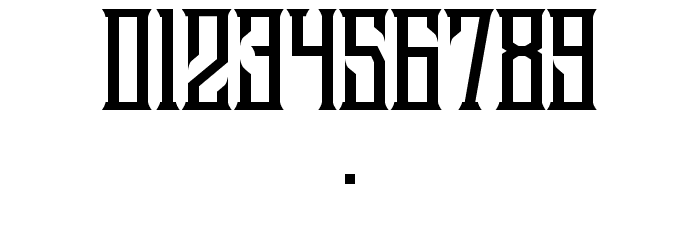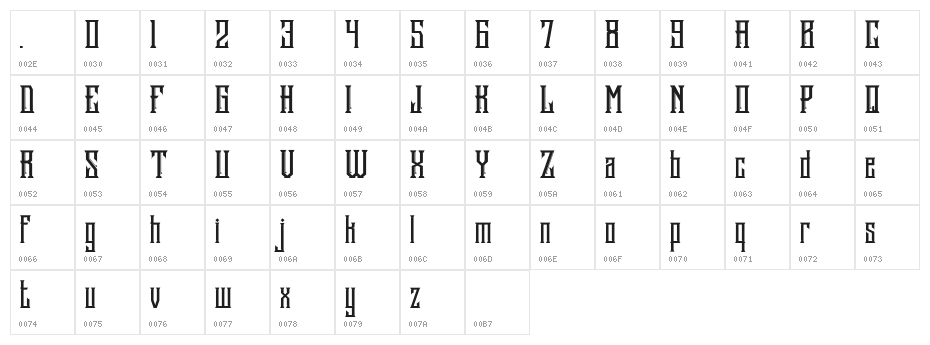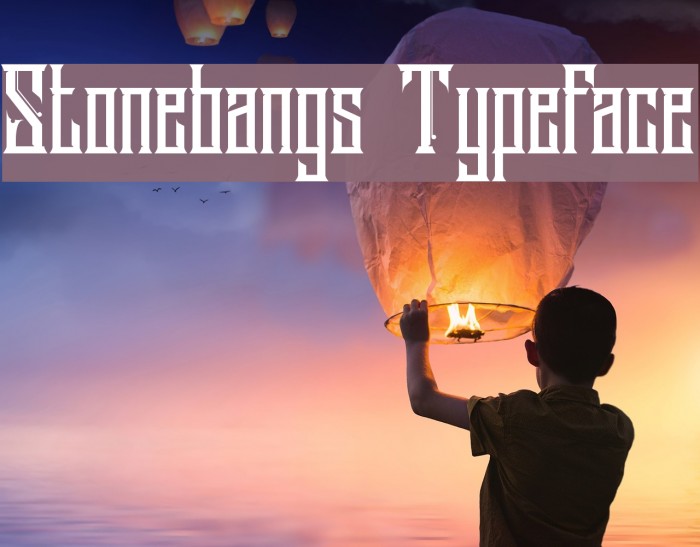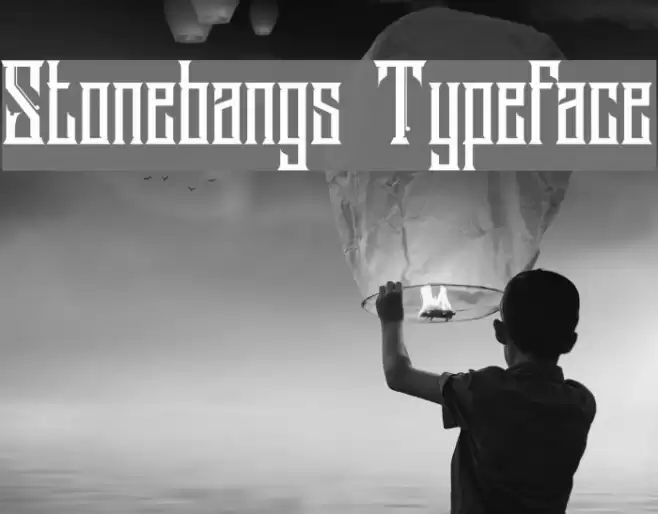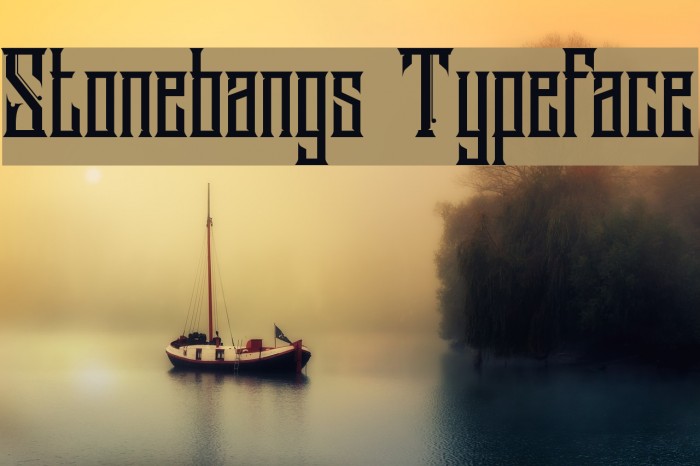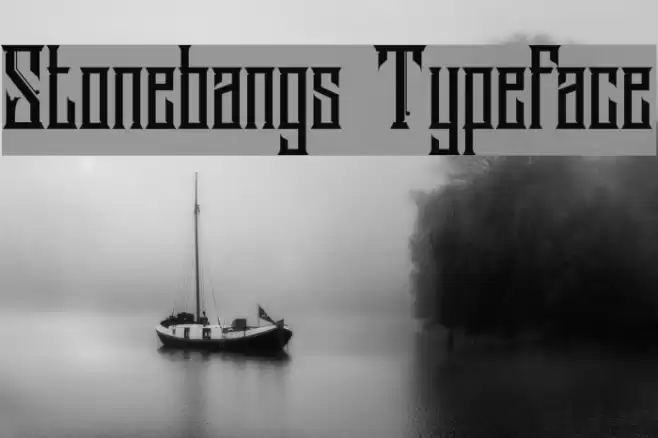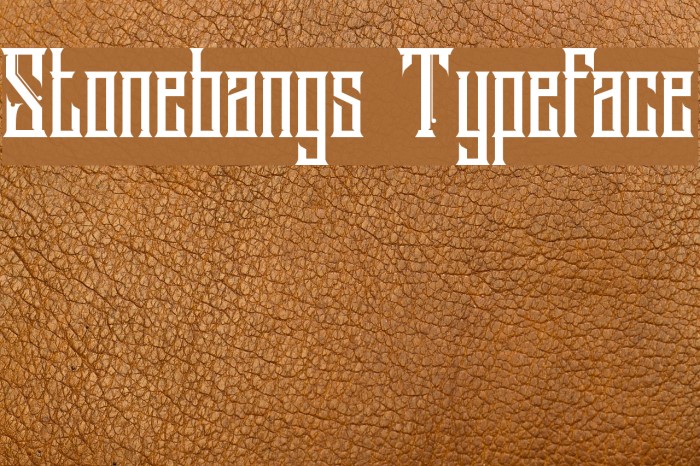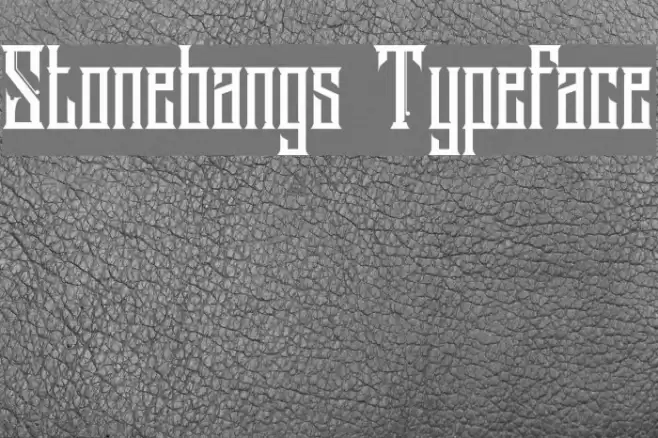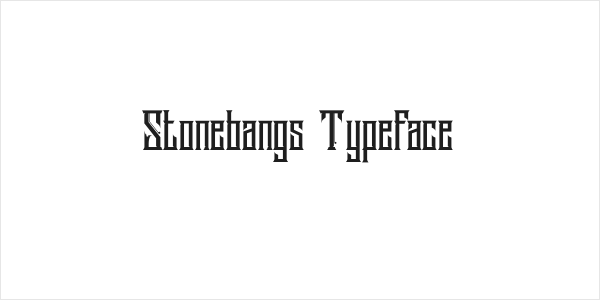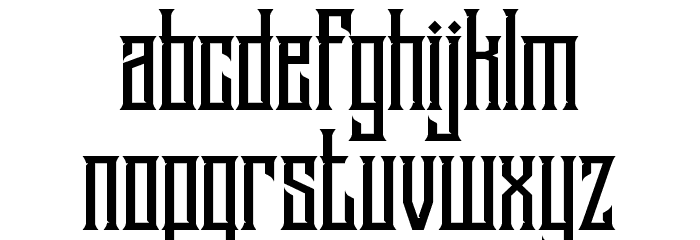
Stonebangs Typeface Font
Stonebangs Typeface Description
This typeface features a bold and striking design with sharp, angular edges and a distinct geometric structure. The uppercase letters are tall and commanding, while the lowercase letters maintain a consistent style that complements the uppercase. The numerals are equally bold, ensuring they stand out in any context. The special characters are designed to match the overall aesthetic, making this typeface cohesive and visually impactful. Its unique style is reminiscent of gothic or medieval influences, yet it maintains a modern edge that makes it versatile for various design projects.
| Overall Style | Modern, Gothic |
| Proposed Projects | Ideal for branding, posters, album covers, and any project requiring a bold, eye-catching typeface. |